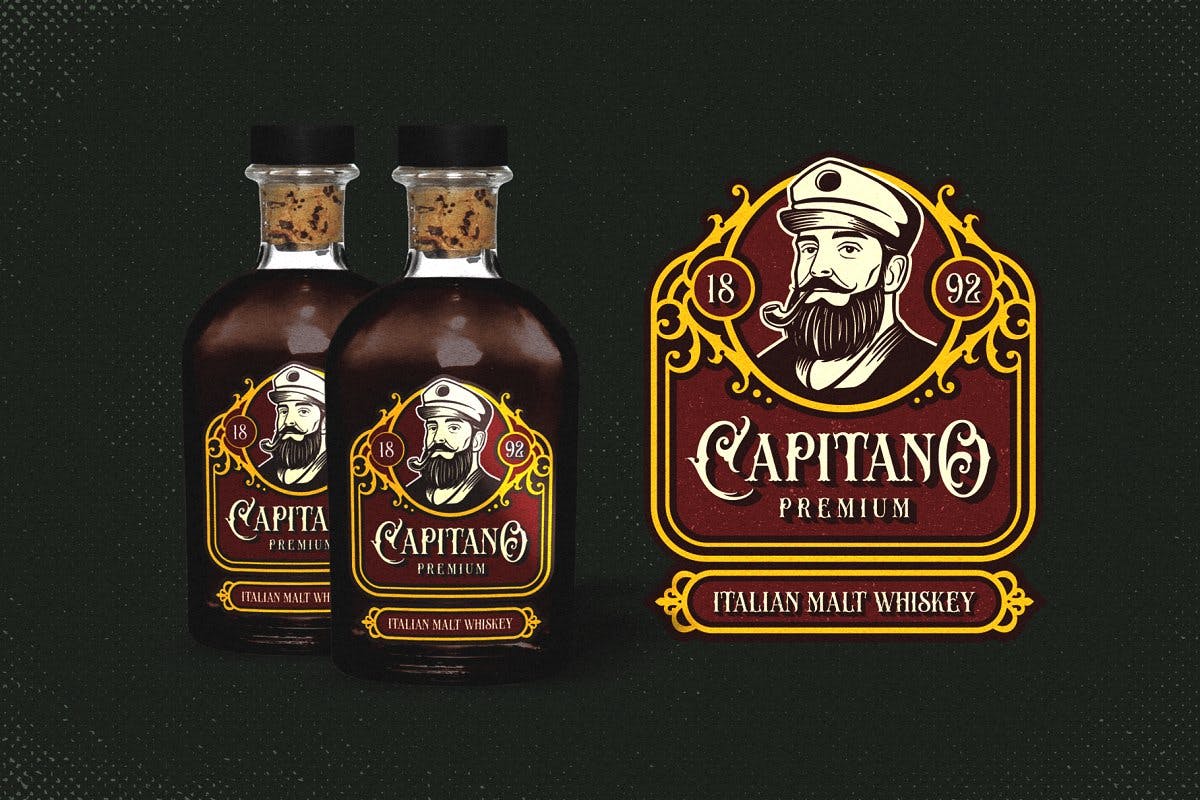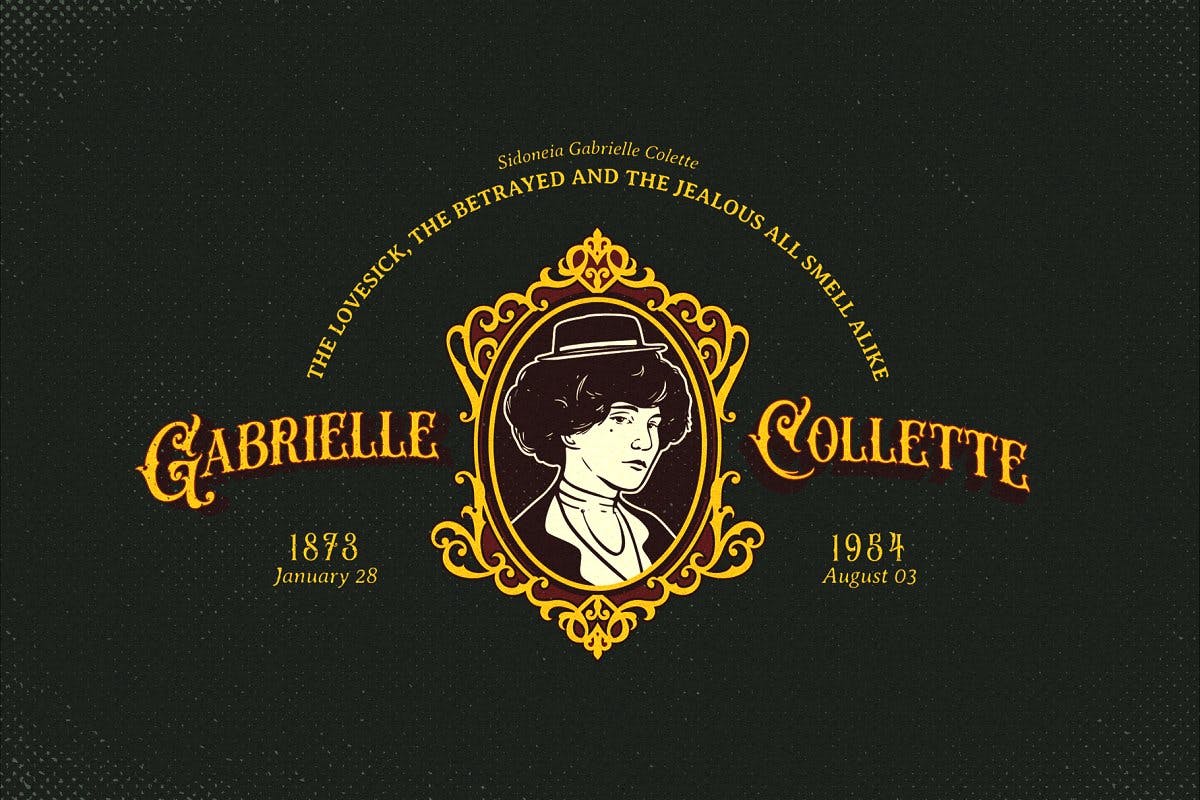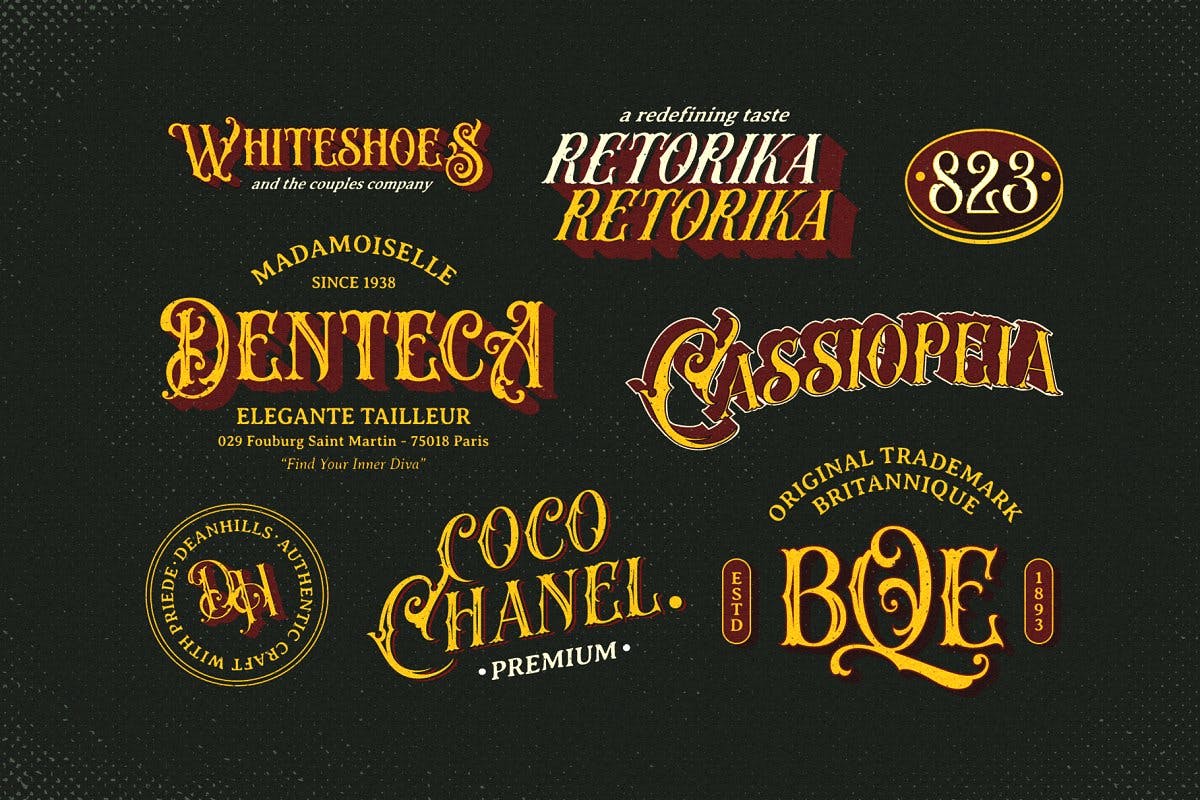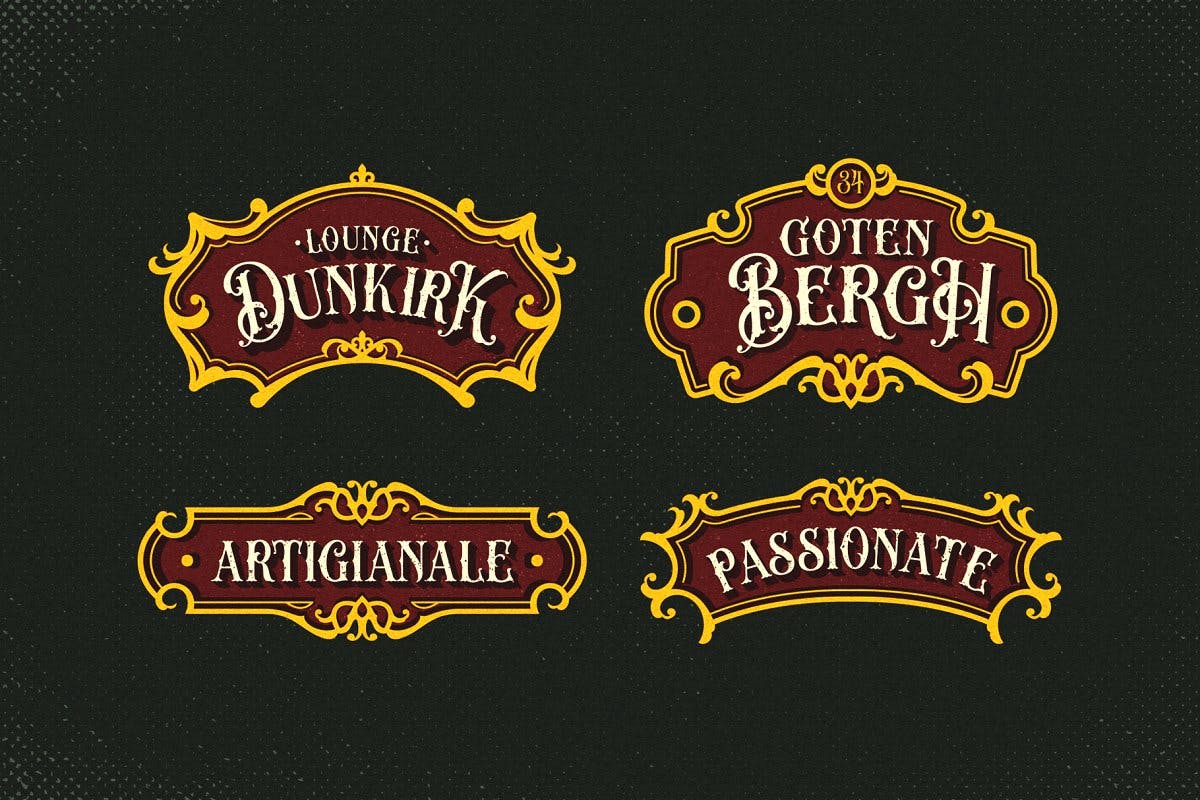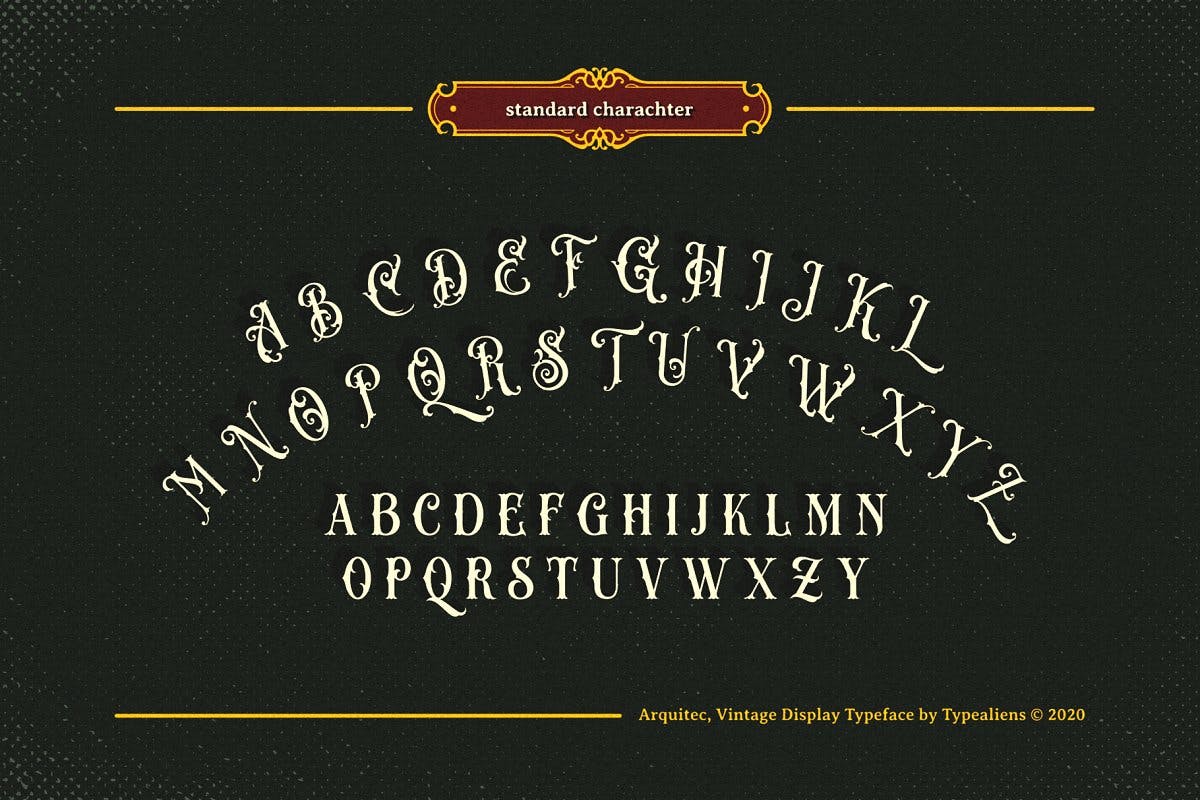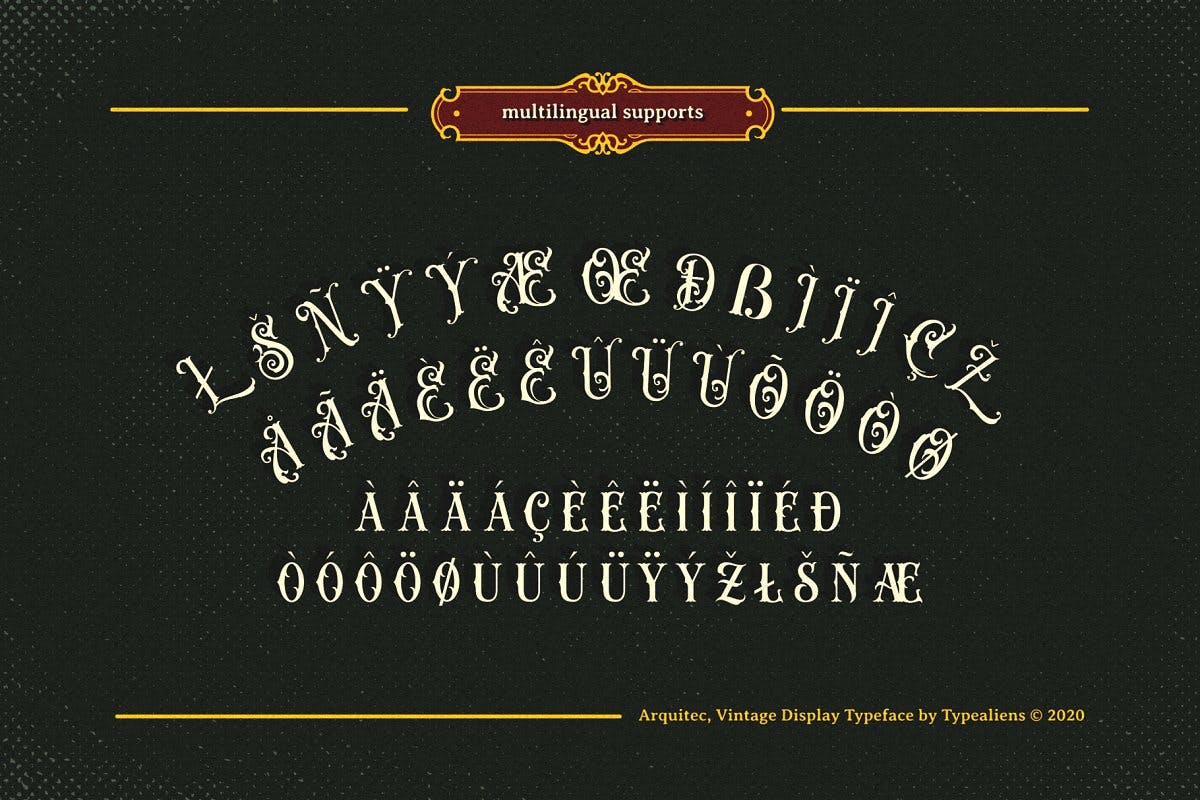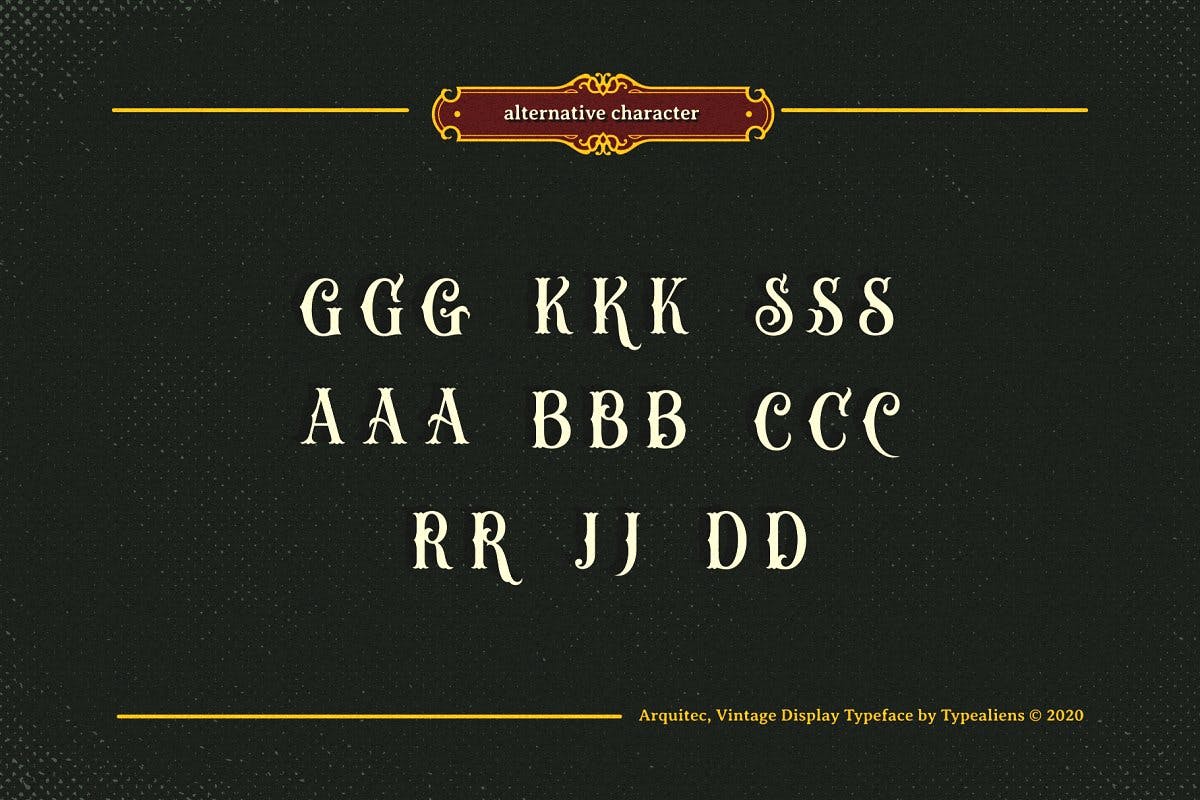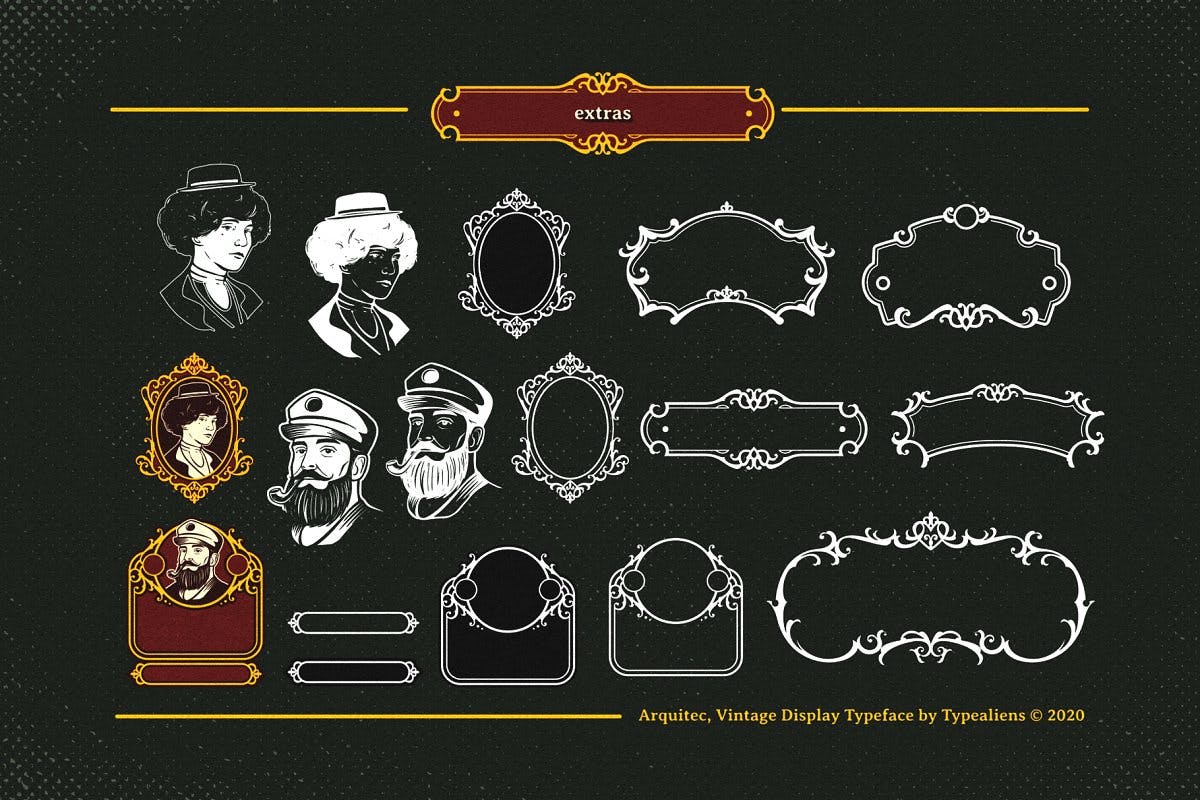
Free Arquitec Display Font
Free Arquitec Display Font is a display font with a beautiful vintage tone. It is suitable for designing vintage logotypes, vintage badge designs, packaging, liquor label, and more. This font is available for two format files which are OTF and TTF. Also, you will get a vintage shape that you can use on logos or badges, of course, it will help you to make your design completely. The badge is available for vector that you can edit or customize it on Adobe Illustrator, CorelDraw, and other vector software. However, This free font is coming with a personal use license. If you don’t want to get any trouble when you use it on a commercial project, please purchase the premium version.